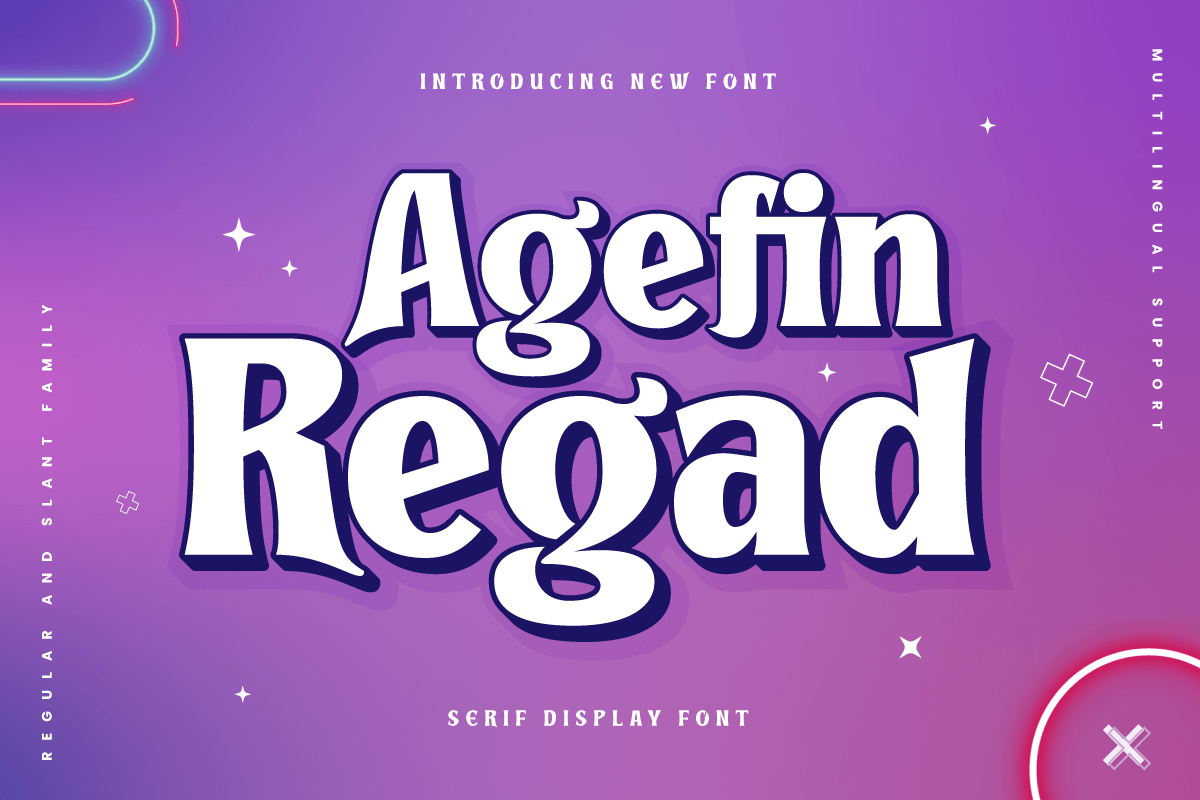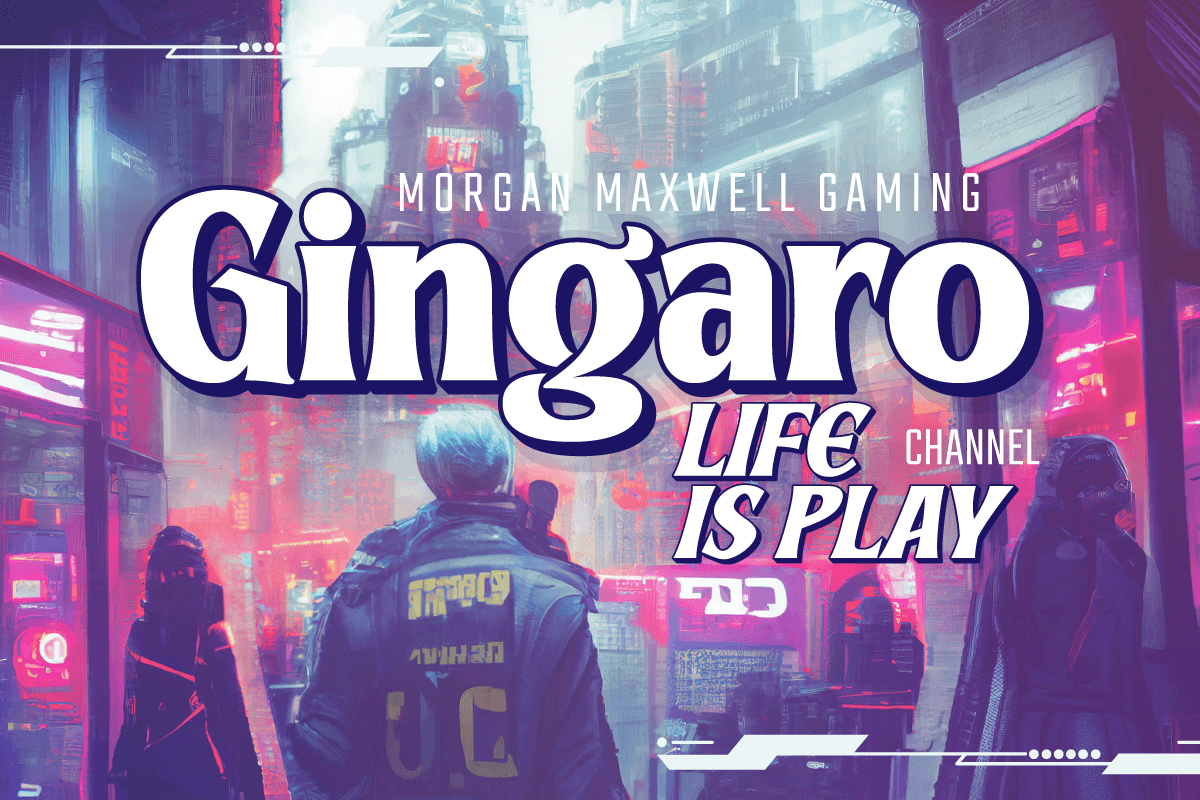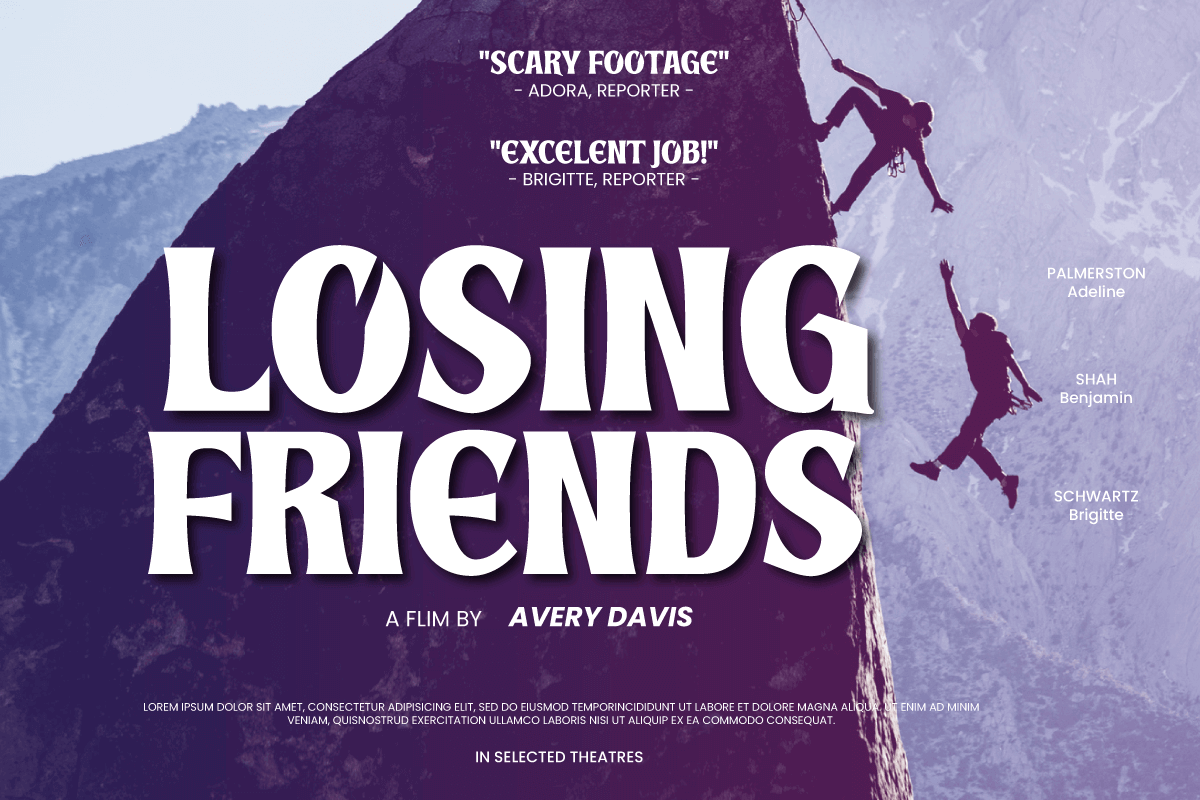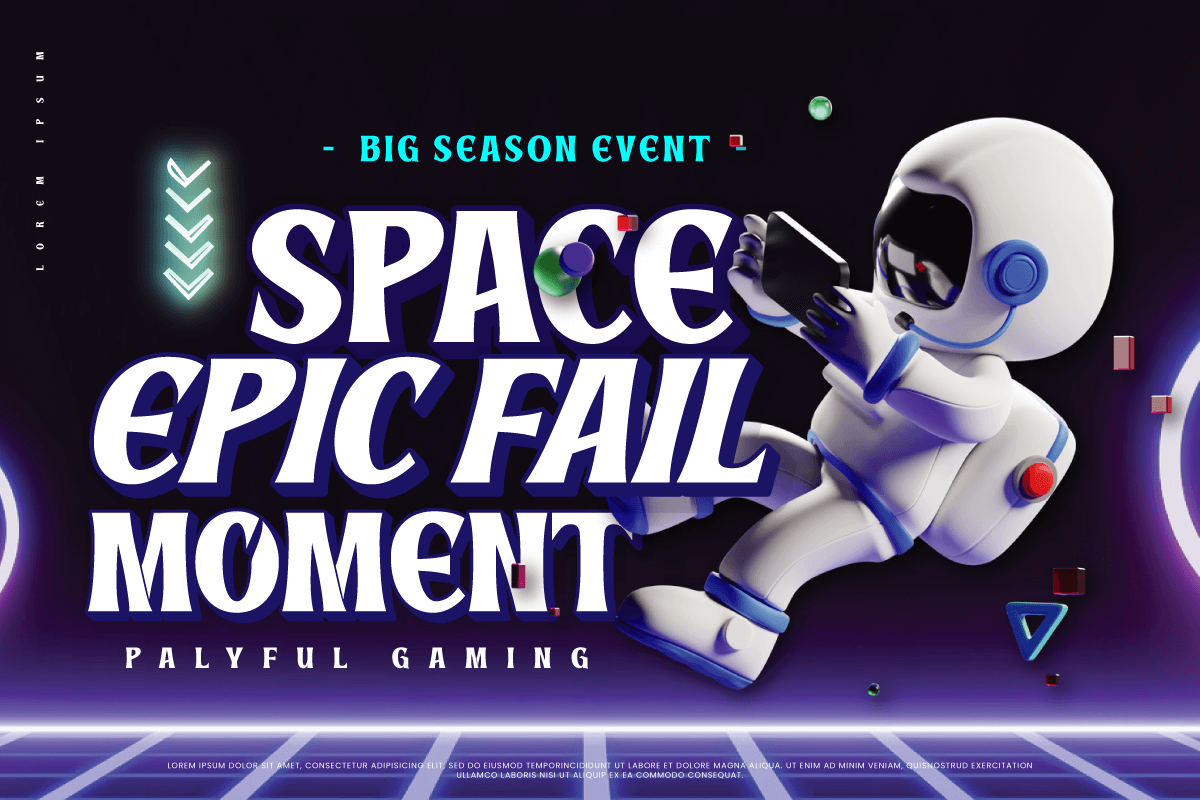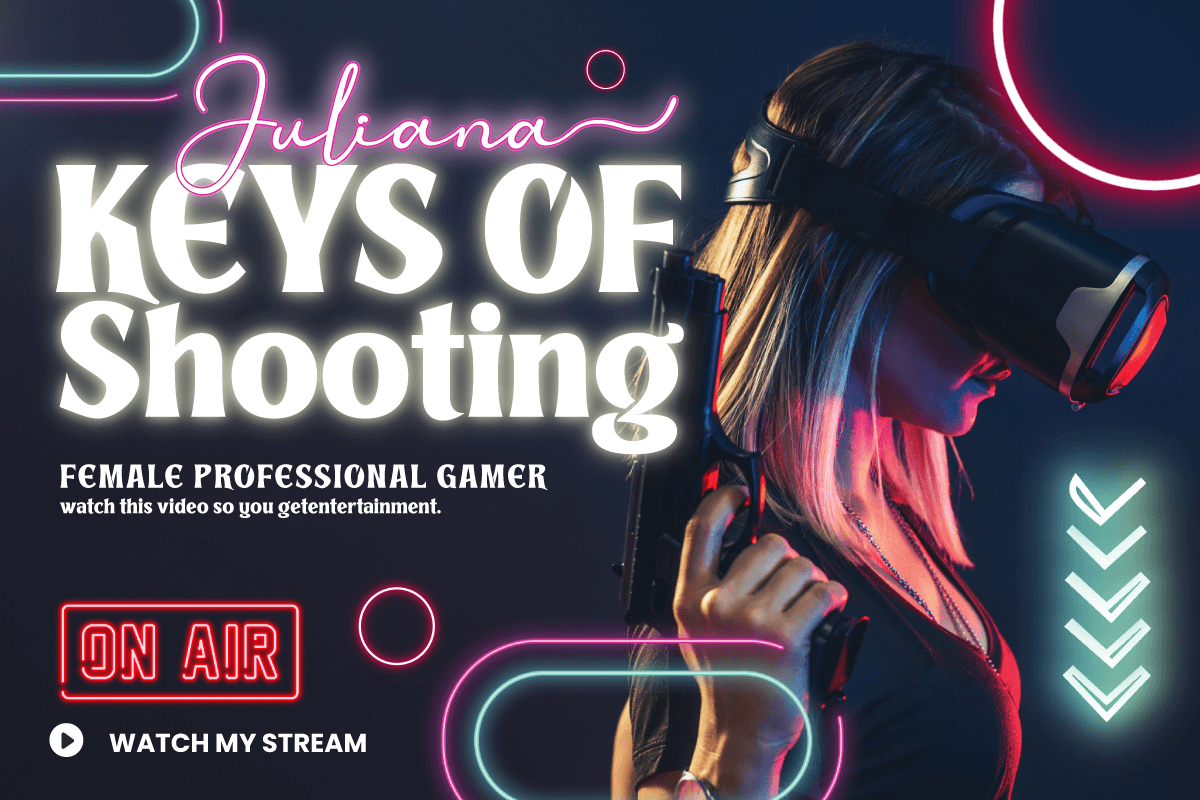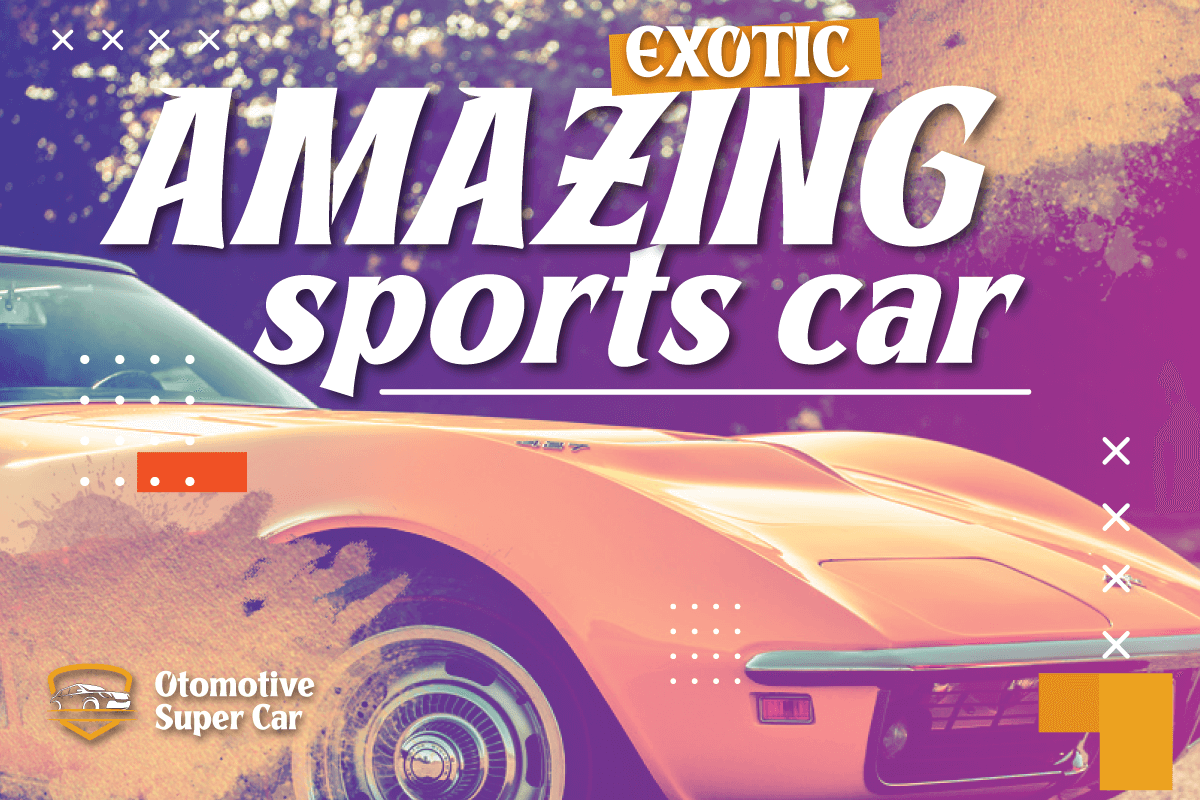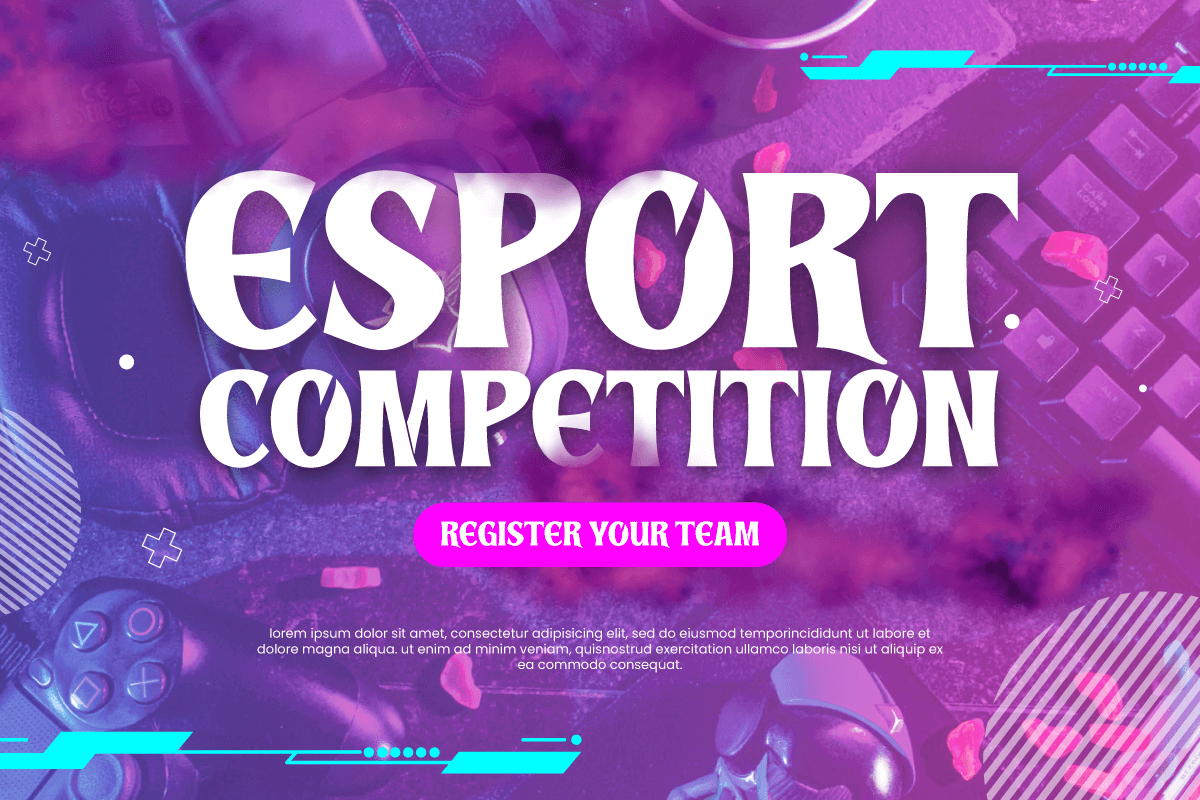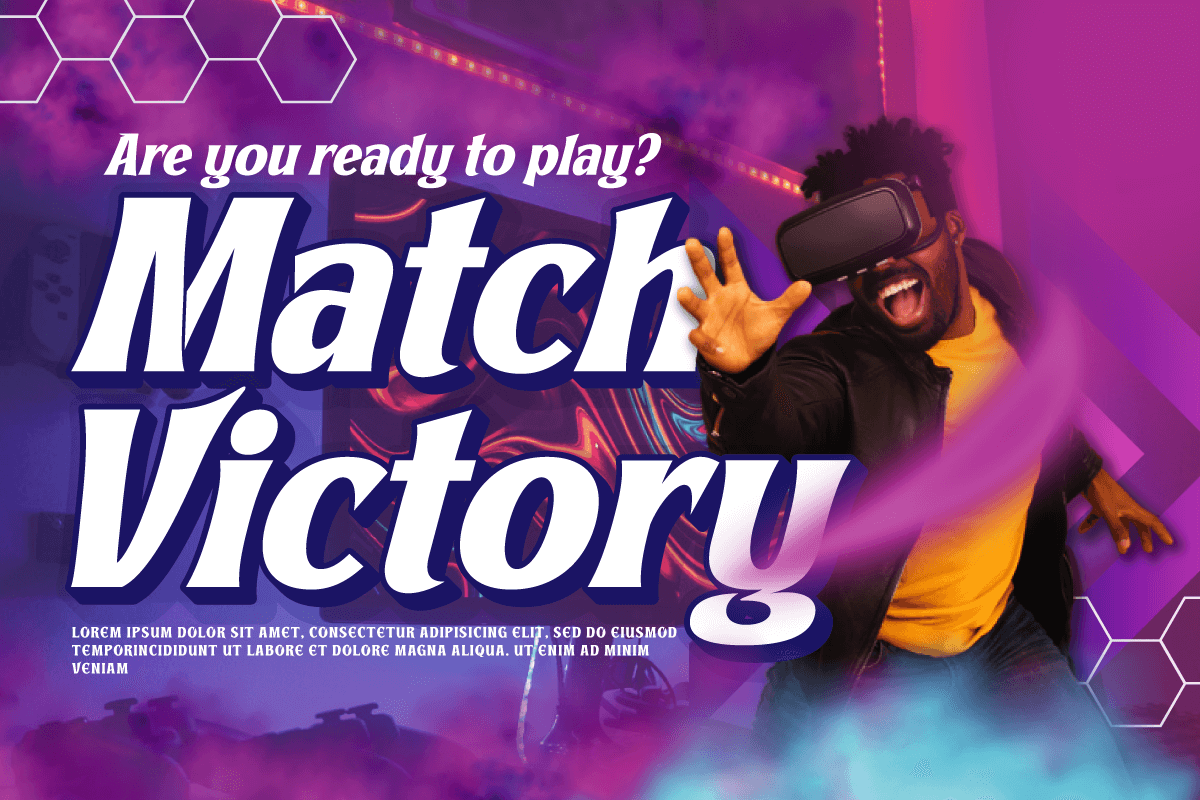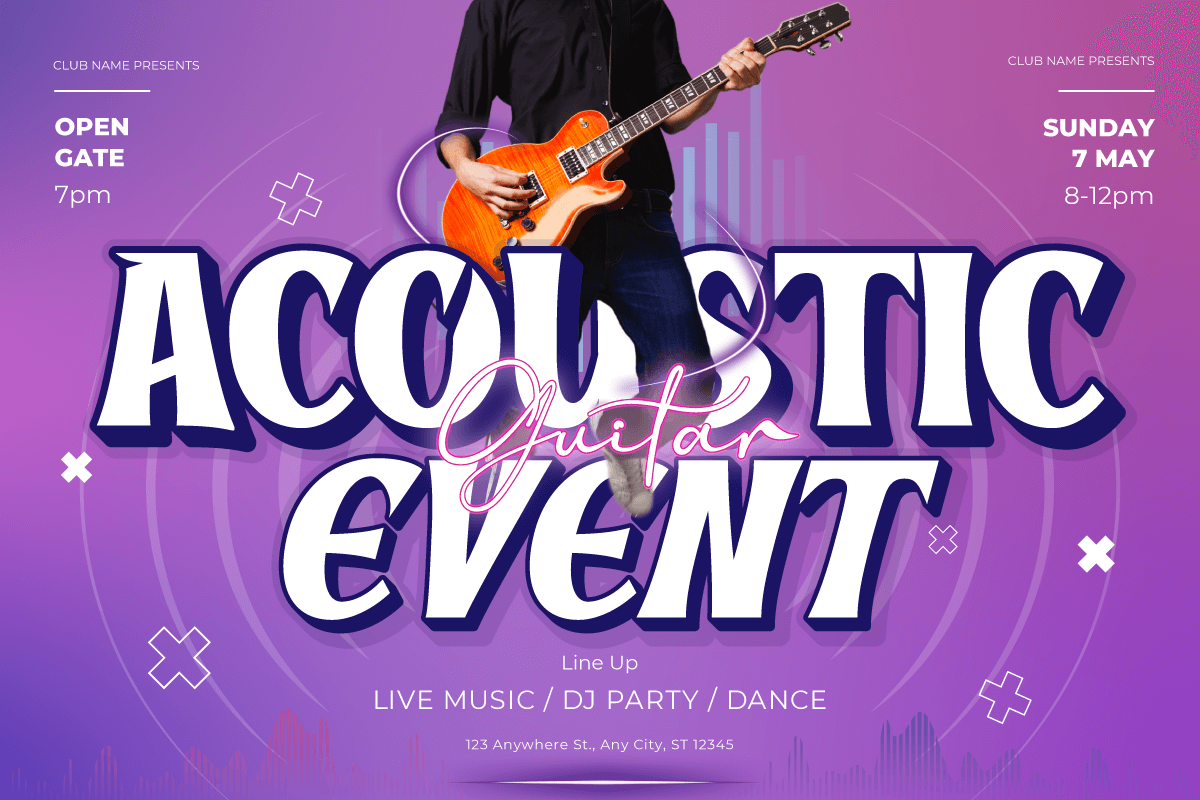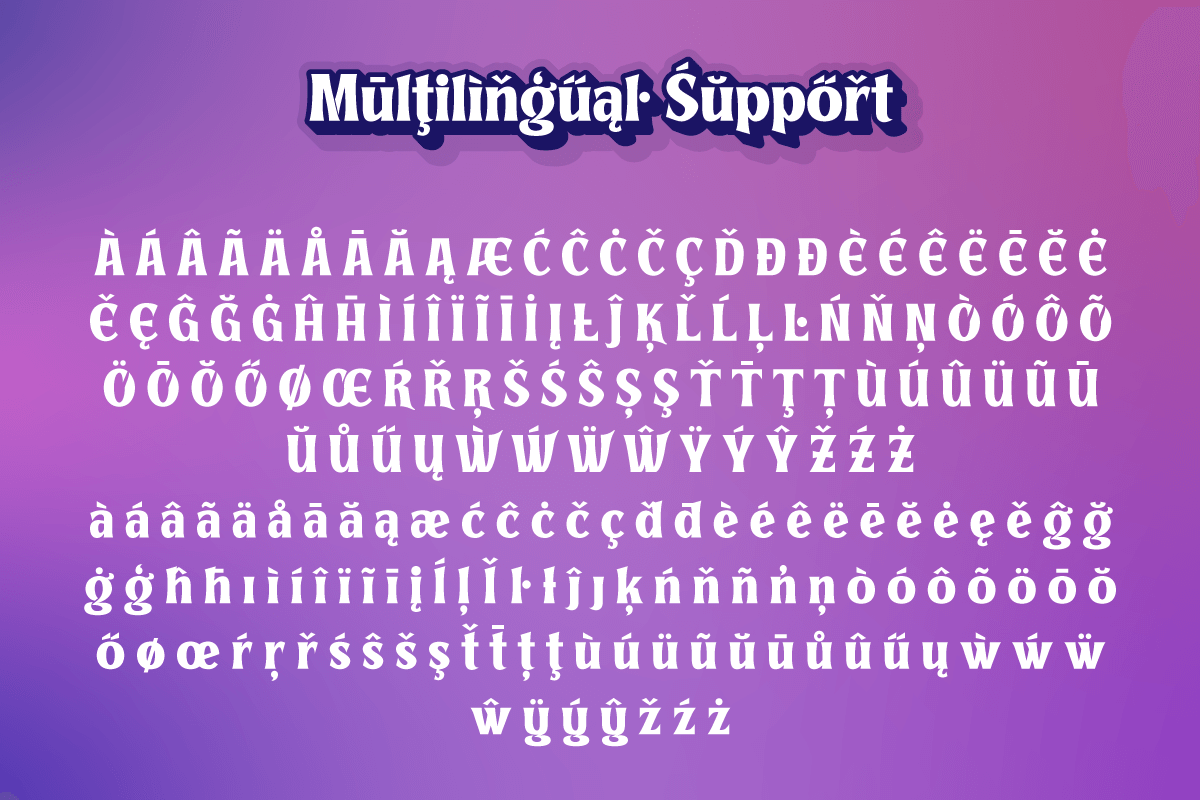
Agefin Regad – Display Font For Gaming
Introducing Agefin Regad, the perfect solution for your superhero-themed projects! With its bold and standout serif design, Agefin Regad is the ideal font for any project that requires a robust and impactful look.
Agefin Regad comes in two families: regular and slant, allowing you to choose the perfect style for your design. Whether you’re creating logos, headlines, or posters, Agefin Regad has got you covered.
With its unique and attention-grabbing design, Agefin Regad is the perfect choice for projects that need to stand out from the crowd. And with its multilingual support, you can use it for projects all over the world.
• All glyphs Iso Latin 1
• Ligature, Alternate
• Fonts include Multilingual support